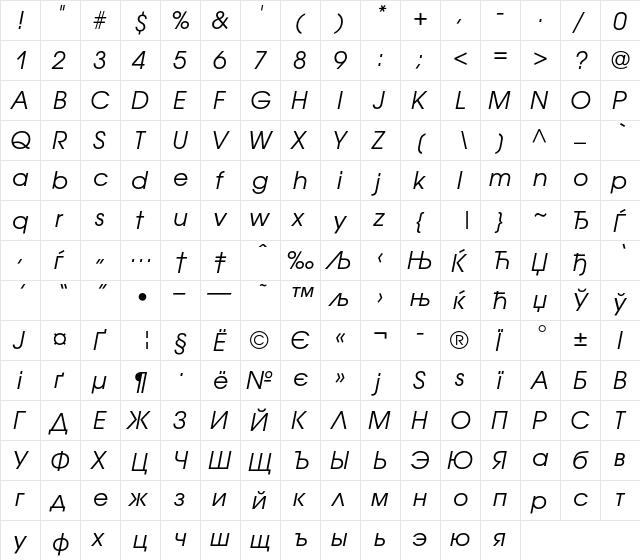
AvantGardeGothicC Regular Font Preview
AvantGardeGothicC Regular
Design Context for AvantGardeGothicC Typeface
AvantGardeGothicC takes a clean, functional approach — its unadorned letterforms prioritise legibility and work reliably across screen and print environments.
Font Pairing: Works well alongside a characterful serif or display font that can carry the expressive load while AvantGardeGothicC handles the functional copy.
Pro Tip: Pair AvantGardeGothicC with a display or serif font for headlines — its neutral character makes it an excellent supporting player in complex typographic systems.